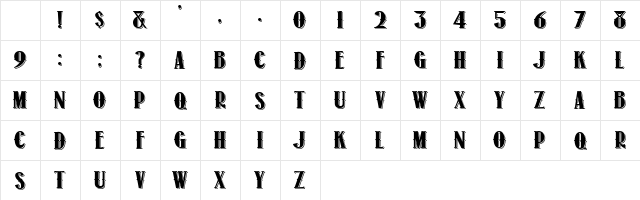
Complete 1873 Winchester Regular glyph index. Displaying only characters natively supported by 1873 Winchester Regular font.
1873 Winchester is a composed and adaptable typeface that performs quietly and consistently across a wide range of design contexts.
Who designed the 1873 Winchester Regular font?
This font was published by Tom Kolter. Check the technical specs section for copyright and designer details.